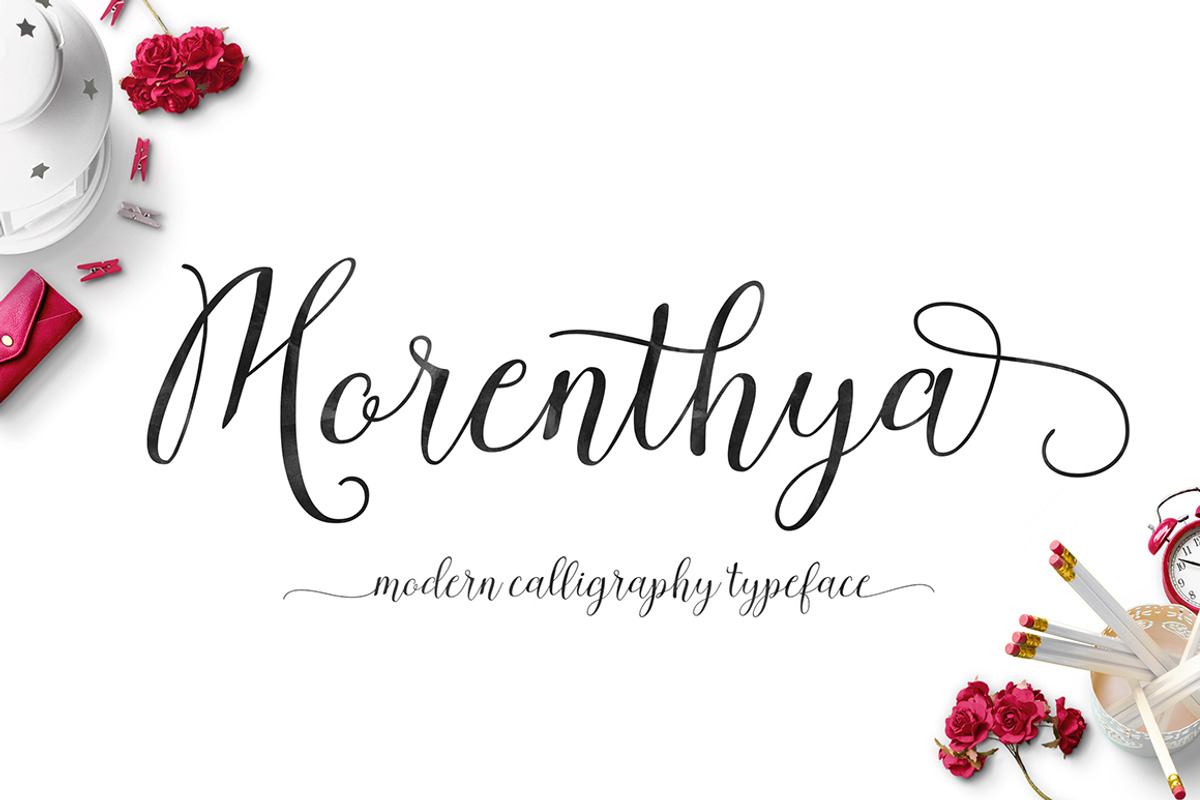
Morenthya Script Font Free Download is an elegant and flowing script typeface that adds a touch of sophistication and warmth to your designs. With its graceful curves, delicate swashes, and fluid connection, this font is perfect for invitations, logos, branding, social media graphics, and any project that requires a personal, artistic touch.
Its unique design brings a sense of luxury and authenticity to your typography, making it ideal for upscale events, branding materials, and personal projects. Whether you're designing a wedding invitation, a chic logo, or a handwritten-style brand, Morenthya Script Font Free Download adds a polished and timeless flair.